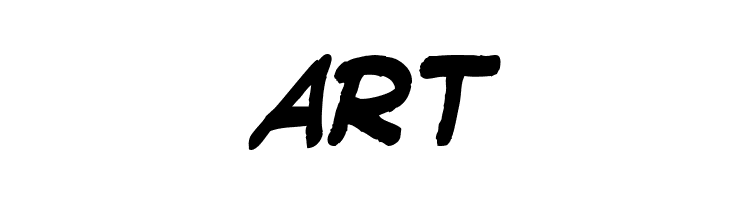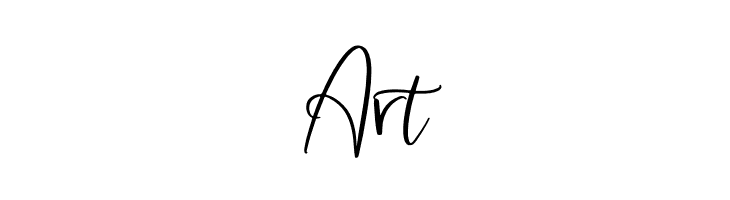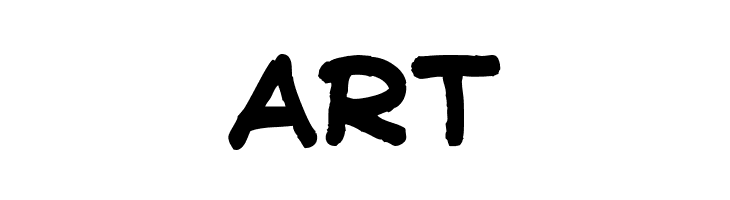
A playful, informal handwritten font with uneven strokes and a casual style.
( Fonts by Integritype Studio )
A playful and energetic handwritten font with a modern flair.
( Fonts by InspiraType )
A lively and energetic handwritten font with smooth, slightly slanted letterforms.
( Fonts by InspiraType )
A lively, handwritten font with fluid, slightly slanted letterforms.
( Fonts by Denny Sutanto )
A playful, hand-drawn font with rounded, bold characters and a casual style.